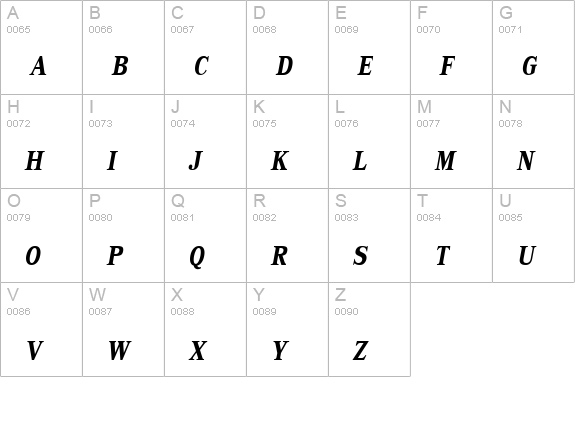
KodchiangUPC Bold Italic Font Details
KodchiangUPC Bold Italic is a strong, high-contrast, italic variant in the KodchiangUPC typeface family \xE2\x80\x94 well suited to headlines, attention-grabbing titles, and strong calls-to-action.
KodchiangUPC Bold Italic font is a striking and versatile typeface that exudes boldness and elegance. Its sleek and modern design makes it perfect for adding a touch of sophistication to any project. The italicized style adds a dynamic flair, making it ideal for creating eye-catching headlines or emphasis in text. This font is not only visually appealing but also highly functional, with excellent readability in both print and digital media. Whether used for branding, advertising, editorial design, or any other creative endeavor, KodchiangUPC Bold Italic font will make a statement and leave a lasting impression. The best part is that KodchiangUPC Bold Italic font is available for free download at FontsMarket.com. Yes, you read that right - this exceptional font can be yours at no cost. Don't miss this opportunity to elevate your projects with the elegance and impact of KodchiangUPC Bold Italic font. Download it today and let your creativity soar!